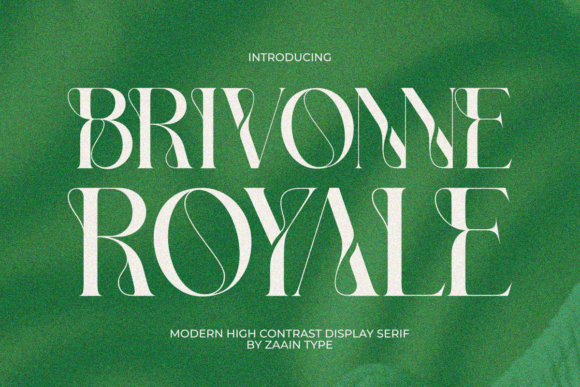
The Elegance of Brivonne Royale: A Modern Serif Font for Luxury Branding
I’ll never forget the design project that led me to discover Brivonne Royale. I was working on a high-end fashion brand’s visual identity, and my client requested a font that exuded luxury, sophistication, and elegance. After hours of scouring font libraries and marketplaces, I stumbled upon Brivonne Royale. Its refined serif details, balanced proportions, and decorative swashes instantly caught my attention. I knew I had found the perfect fit.
An Honest Review of Brivonne Royale
- 💯 Elegant and refined serif details that convey luxury and authority
- 🎨 Sophisticated decorative swashes and curved lines that add a touch of sophistication
- 📸 Perfect for high-end branding, fashion magazines, and premium editorials
- 👍 Well-suited for large formats, such as headlines and display text
- 🤔 Not suitable for body text due to its complex letterforms and decorative swashes
- ⚠️ Limited use for small text sizes or captions
The Designer Inspiration Behind Brivonne Royale
Brivonne Royale was designed with the intention of creating a luxurious and elegant serif font that would evoke the feeling of high-end fashion and sophistication. The designer’s inspiration came from classic serif fonts, but with a modern twist. The result is a font that feels both refined and contemporary.
Q: What is Brivonne Royale best used for?
A: Brivonne Royale is best used for high-end branding, fashion magazines, premium editorials, and exclusive product packaging.
Q: Can I use Brivonne Royale for body text?
A: No, Brivonne Royale is not suitable for body text due to its complex letterforms and decorative swashes. It’s best used for display text or headlines.
Q: Does Brivonne Royale support OpenType features?
A: Yes, Brivonne Royale supports OpenType features, including ligatures, stylistic sets, and swashes.